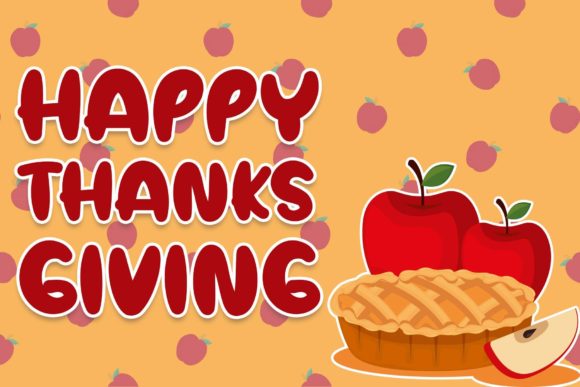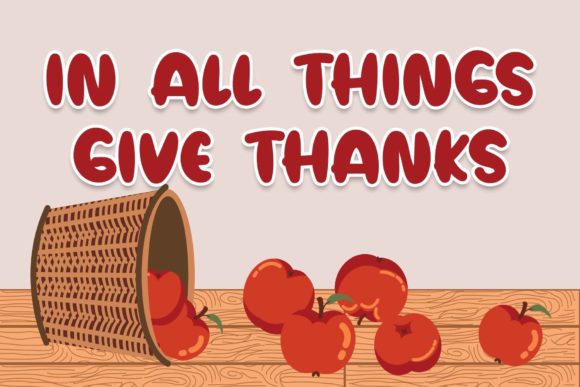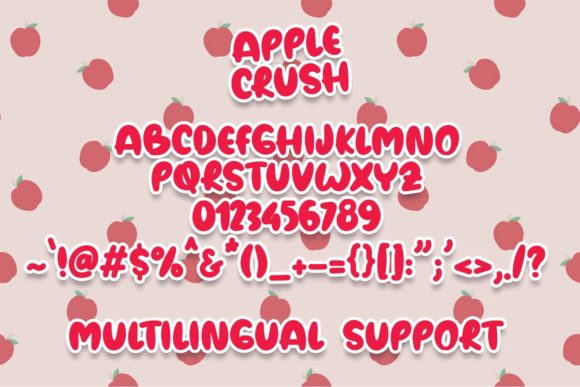
The Apple Crush Font: A Fun and Playful Addition to Your Font Library
I’ll never forget the time I was working on a project for a client who wanted a fun and playful vibe. I had spent hours browsing through font libraries, but nothing seemed quite right. That was until I stumbled upon the Apple Crush font. It was like a breath of fresh air – a handwritten font that was both modern and whimsical. In this article, I’ll share my experience with Apple Crush, its features, and how to make the most of it in your designs.
A Personal Review of Apple Crush
So, what do I love about Apple Crush? Here are a few things that make it a standout font:
- ✨ Unique and playful personality: Apple Crush has a distinct, hand-crafted feel that adds a touch of whimsy to any design.
- ✅ Highly versatile: Whether you’re working on a children’s book, a craft project, or a social media graphic, Apple Crush adapts seamlessly to different contexts.
- 💡 Instant creativity boost: This font has a way of sparking creativity and inspiring new ideas.
Of course, no font is perfect, and Apple Crush has a few quirks:
- 🤔 Limited formal applications: Apple Crush is best suited for informal designs, and may not be the best choice for more formal or professional projects.
- ⚠️ Some letters may require adjustment: Depending on the word or phrase, some letters may need to be adjusted for optimal spacing and readability.
- Experiment with OpenType features, such as glyphs and stylistic alternates, to add visual interest to your text.
- Adjust the font size, color, and spacing as needed, and explore OpenType features, such as ligatures and swashes.
The Backstory of Apple Crush
Apple Crush was designed by a talented type designer who wanted to create a font that captured the playful spirit of childhood. Inspired by vintage children’s books and playful handwriting, Apple Crush is a font that’s both modern and nostalgic. Whether you’re a designer, crafter, or creative hobbyist, Apple Crush is a wonderful addition to your font library.
| What is Apple Crush font? | Apple Crush is a fun and playful handwritten font that’s perfect for creative projects. |